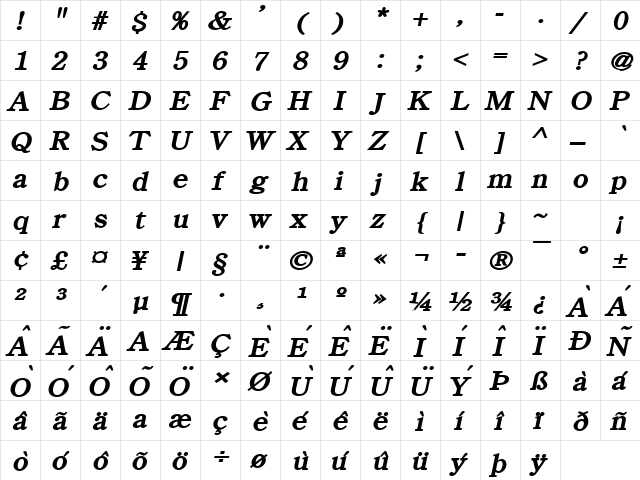
Cento Wide BoldItalic Font Preview
Design Context for Cento Wide Typeface
Cento Wide offers clean, dependable letterforms without strong stylistic allegiance, making it a practical choice for designers who need flexibility. The dynamic lean of this cut emphasises speed and emphasis in any layout. The heavy weight commands attention and anchors typographic hierarchies.
Pro Tip: Try Cento Wide for annotation and caption copy alongside an upright companion — the contrast in angle creates a dynamic but ordered typographic system.